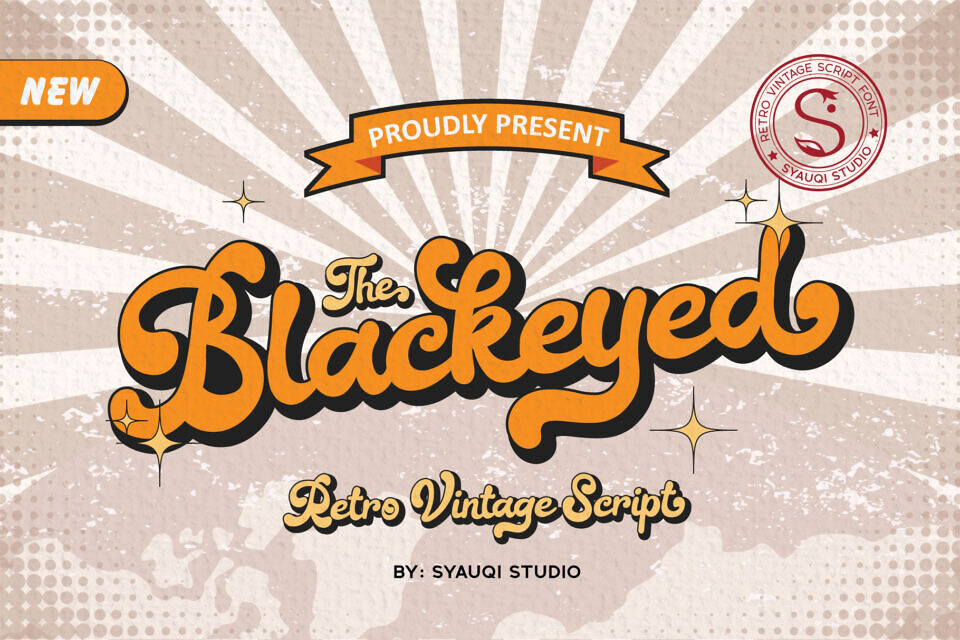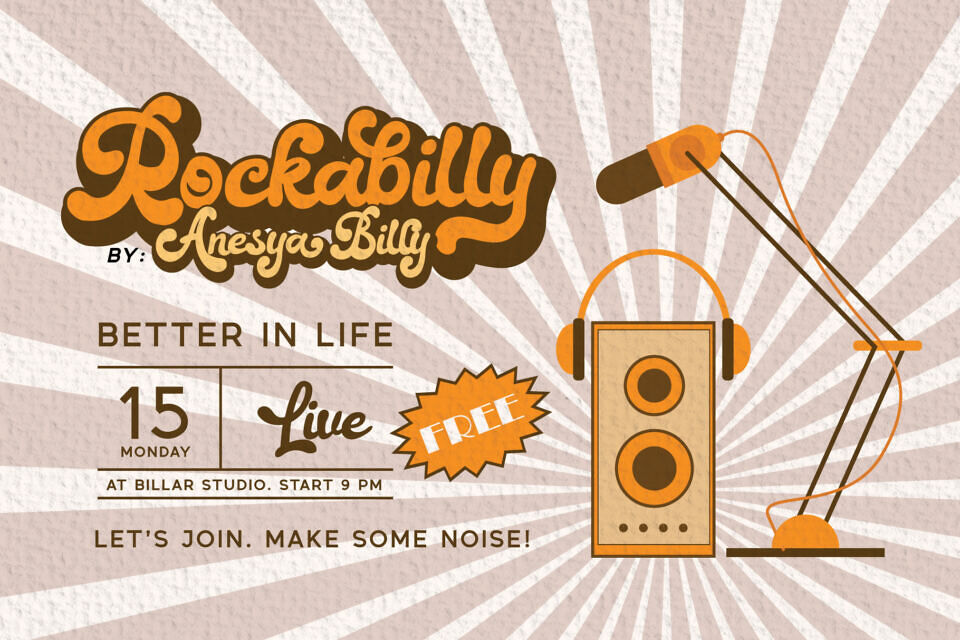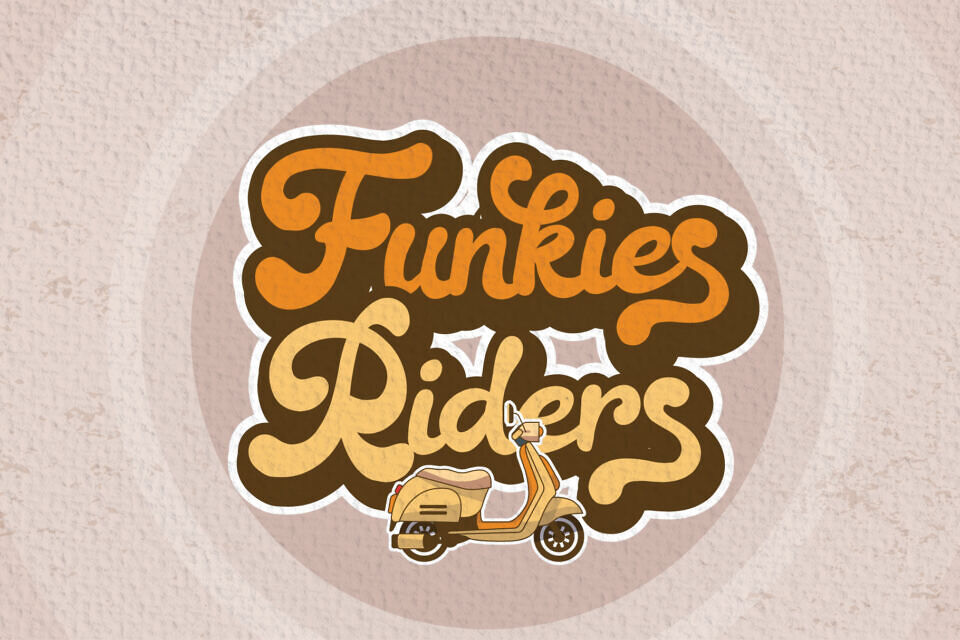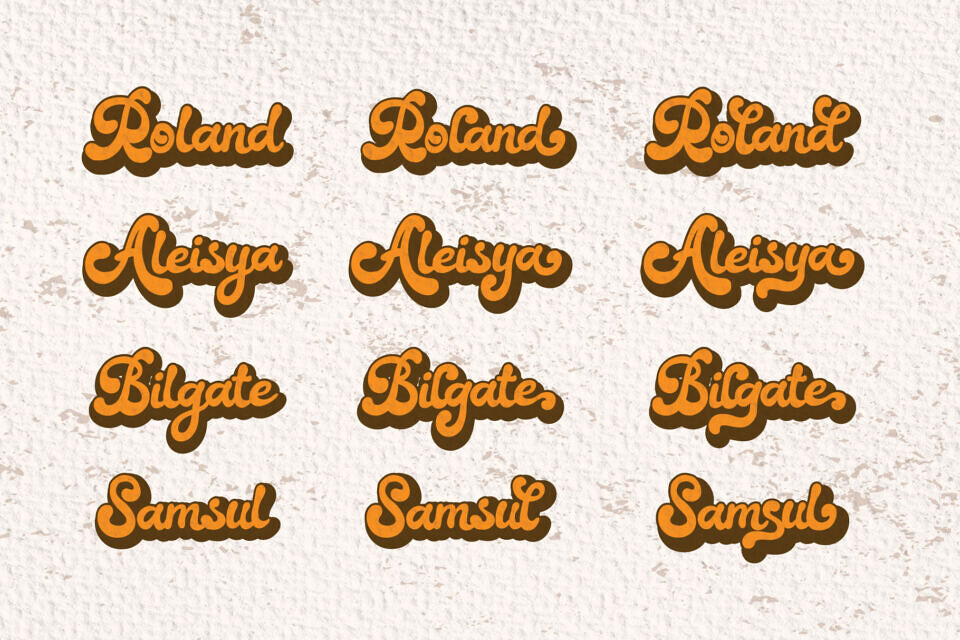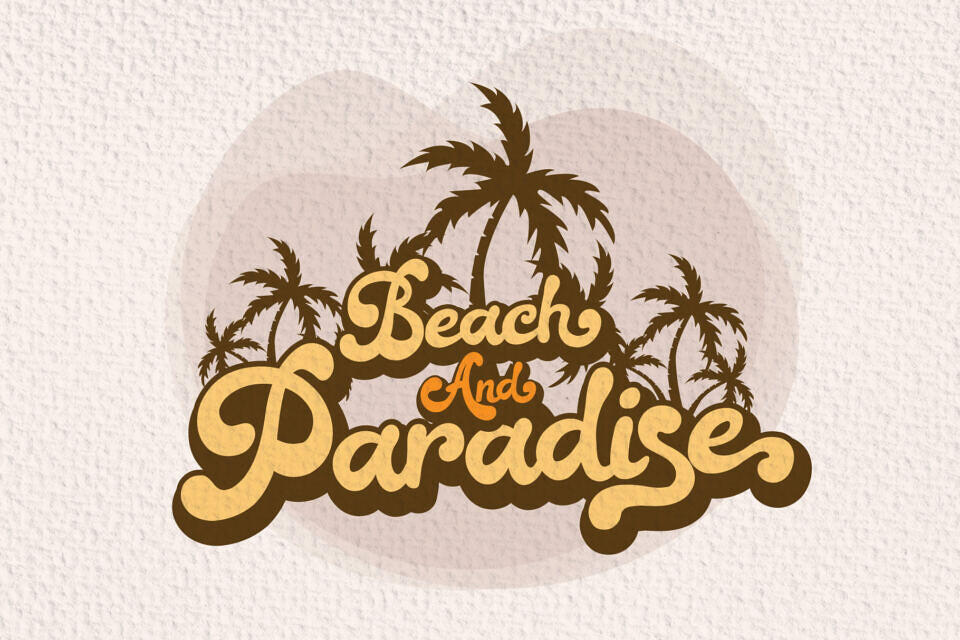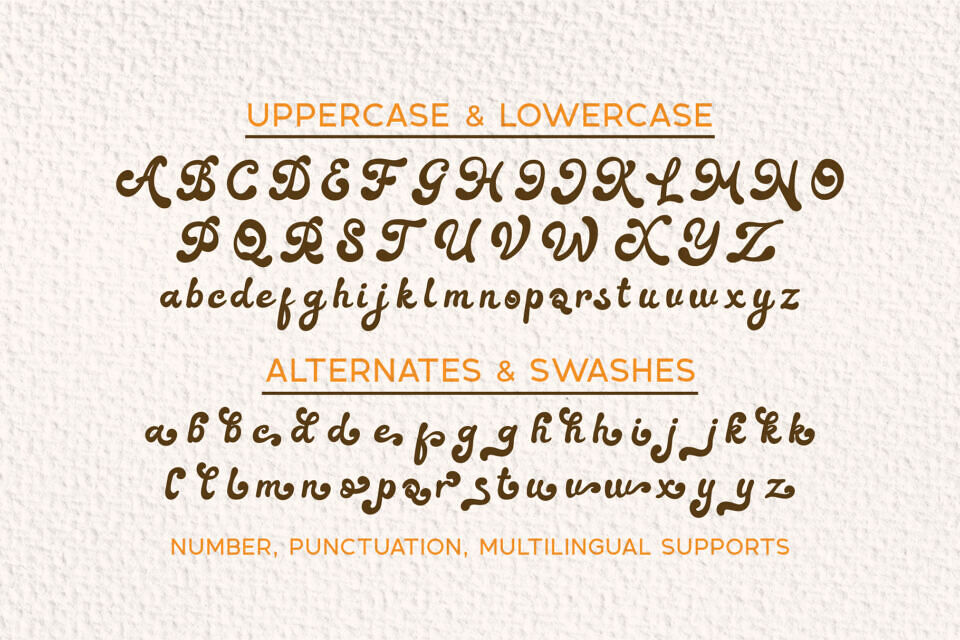
The Blackeyed Font
Introducing The Blackeyed, a charming and sophisticated font that effortlessly blends retro vibes with modern elegance. Inspired by classic script styles, The Blackeyed captures the timeless essence of vintage typography, yet remains clean, playful, and incredibly versatile.
Perfect for those who seek a balance between nostalgia and contemporary flair, this font is your go-to choice for creating stunning designs that stand out with personality and style.